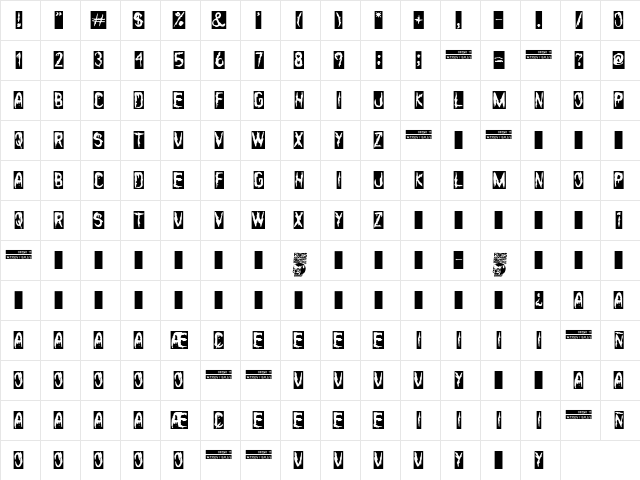
Friday 14 Regular
Design Context for Friday 14 Typeface
Friday 14 is a composed and adaptable typeface that performs quietly and consistently across a wide range of design contexts.
Pro Tip: Use Friday 14 in both headline and body roles to test its range before committing to a single application.